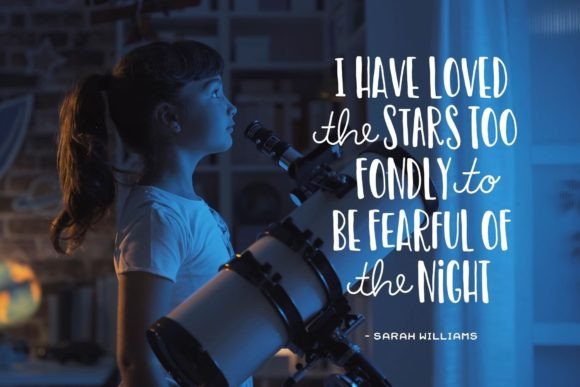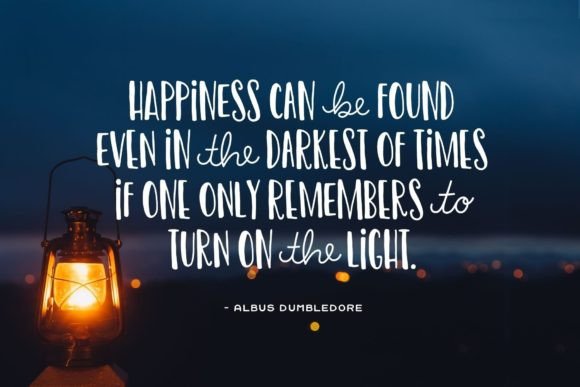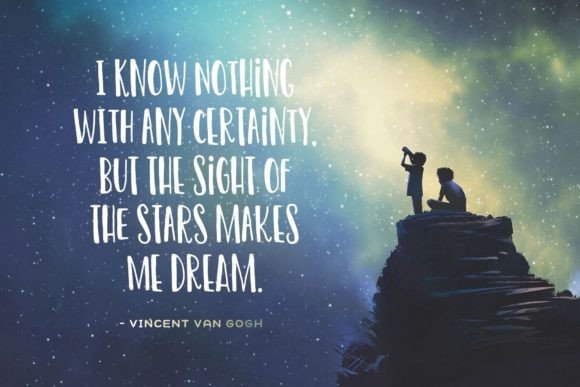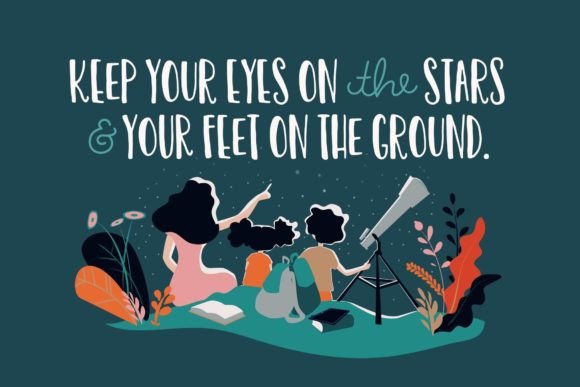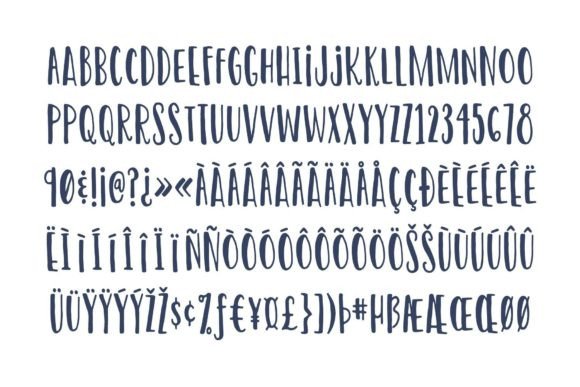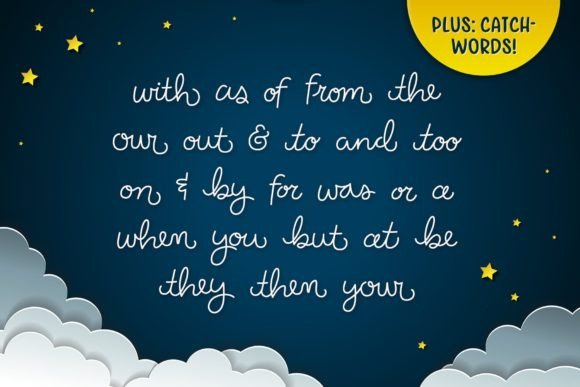
Twinkle the Star Font
About Twinkle the Star Font
Twinkle the Star Font is a condensed, hand-drawn typeface that strikes the ideal balance between personality and readability. This font is crafted to add a touch of whimsy to your designs while maintaining clarity, making it a versatile choice for a variety of creative projects.
The condensed nature of Twinkle the Star Font allows for efficient use of space, making it well-suited for headlines, titles, or any situation where you want to make a visual impact. Its hand-drawn style adds a charming and personal touch to your text, creating a playful and inviting atmosphere.
One notable feature of Twinkle the Star Font is the inclusion of a set of monoline catchwords. These catchwords are designed to pair seamlessly with Twinkle the Star, enhancing the overall cohesiveness of your designs. Whether you’re creating invitations, posters, or any project that requires a whimsical and fun aesthetic, these catchwords provide an additional element of creative expression.
The monoline catchwords can be particularly useful for creating eye-catching and decorative elements within your designs. Their compatibility with Twinkle the Star Font ensures a harmonious and unified look, allowing you to effortlessly incorporate these whimsical details into your projects.
In summary, Twinkle the Star Font is more than just a typeface; it’s a design tool that brings a condensed, hand-drawn aesthetic to your creative endeavors. Whether used for headlines, titles, or paired with the included monoline catchwords, this font offers a delightful and versatile solution for adding personality and charm to your designs.